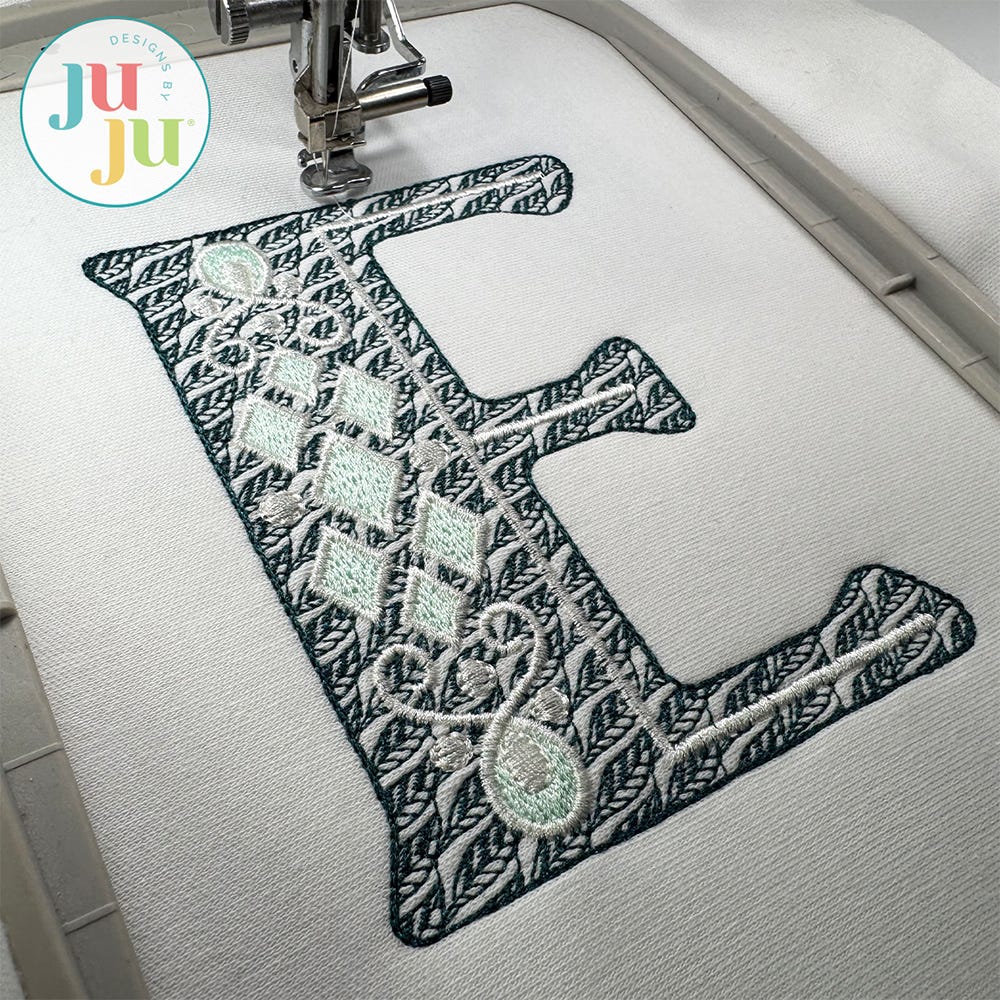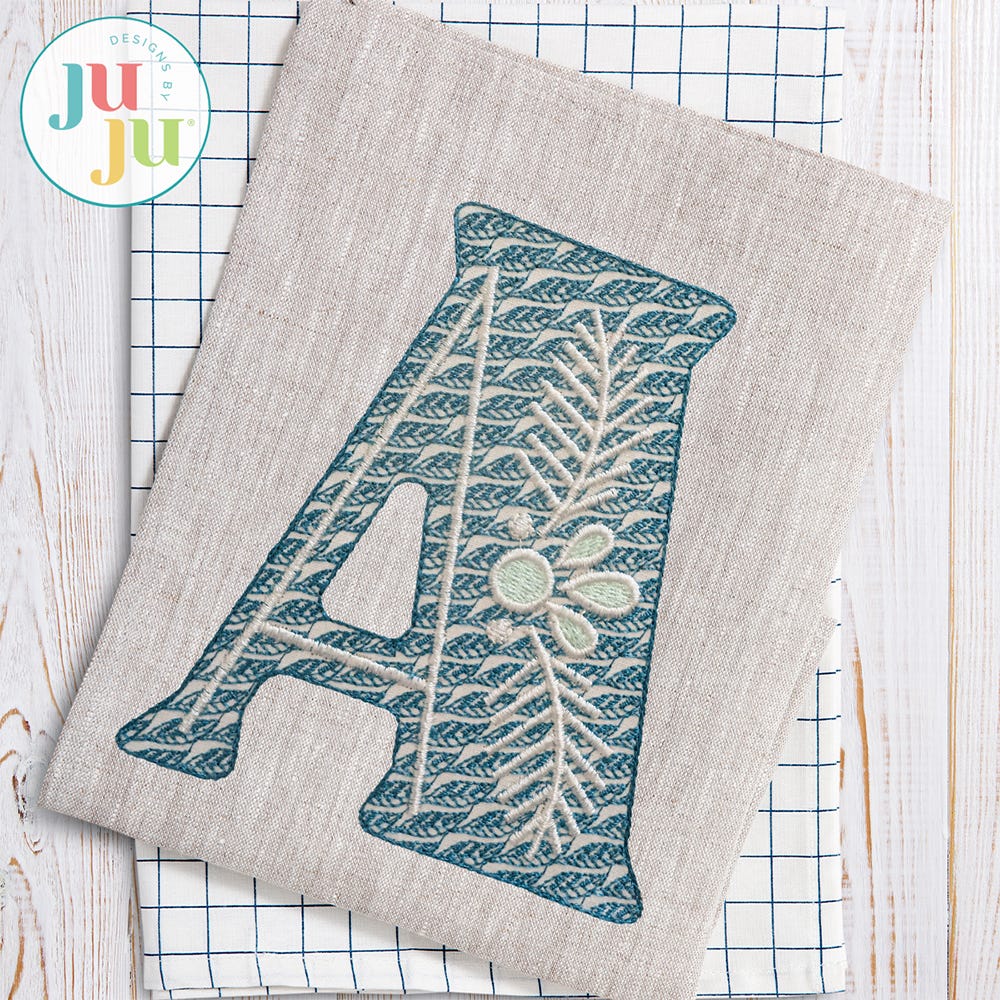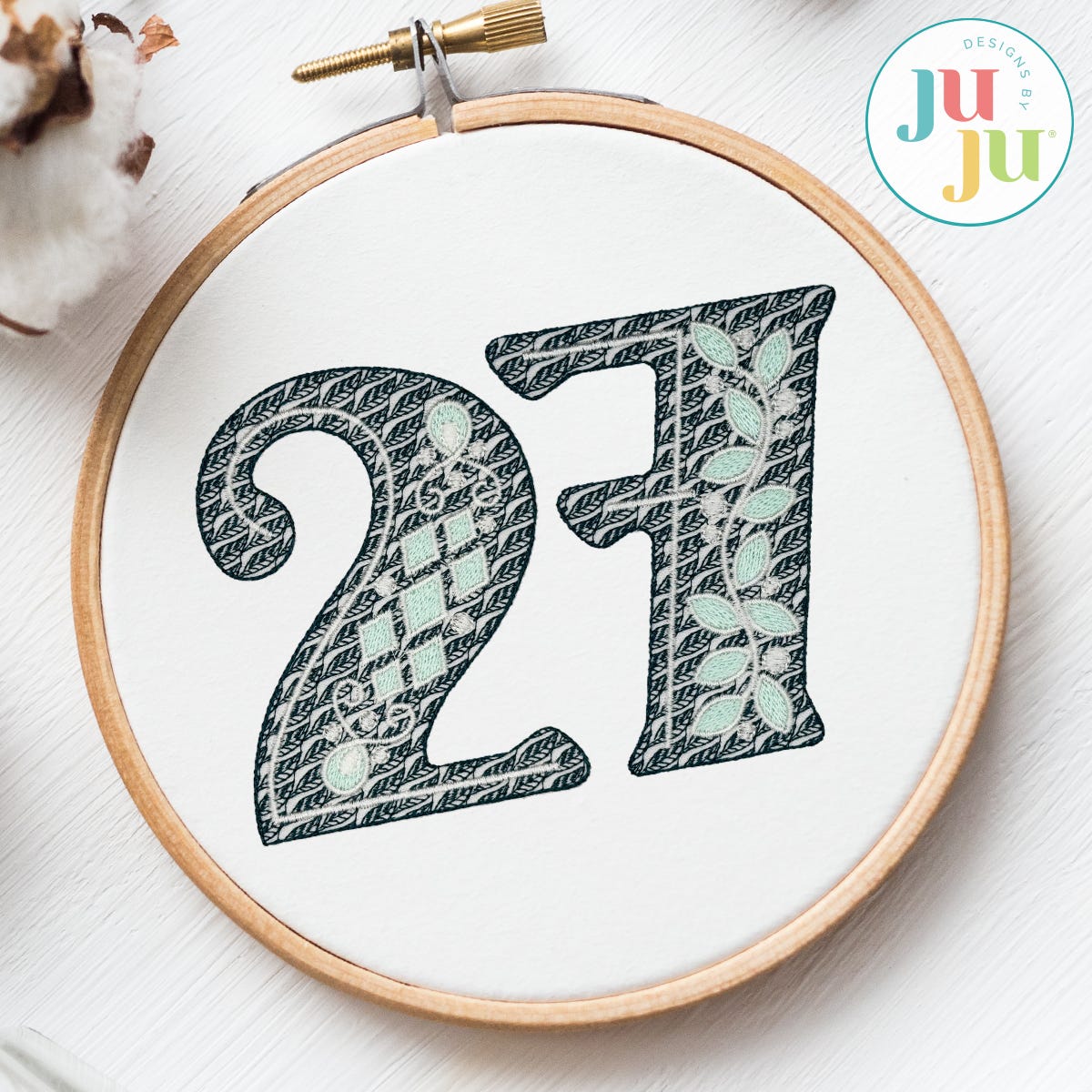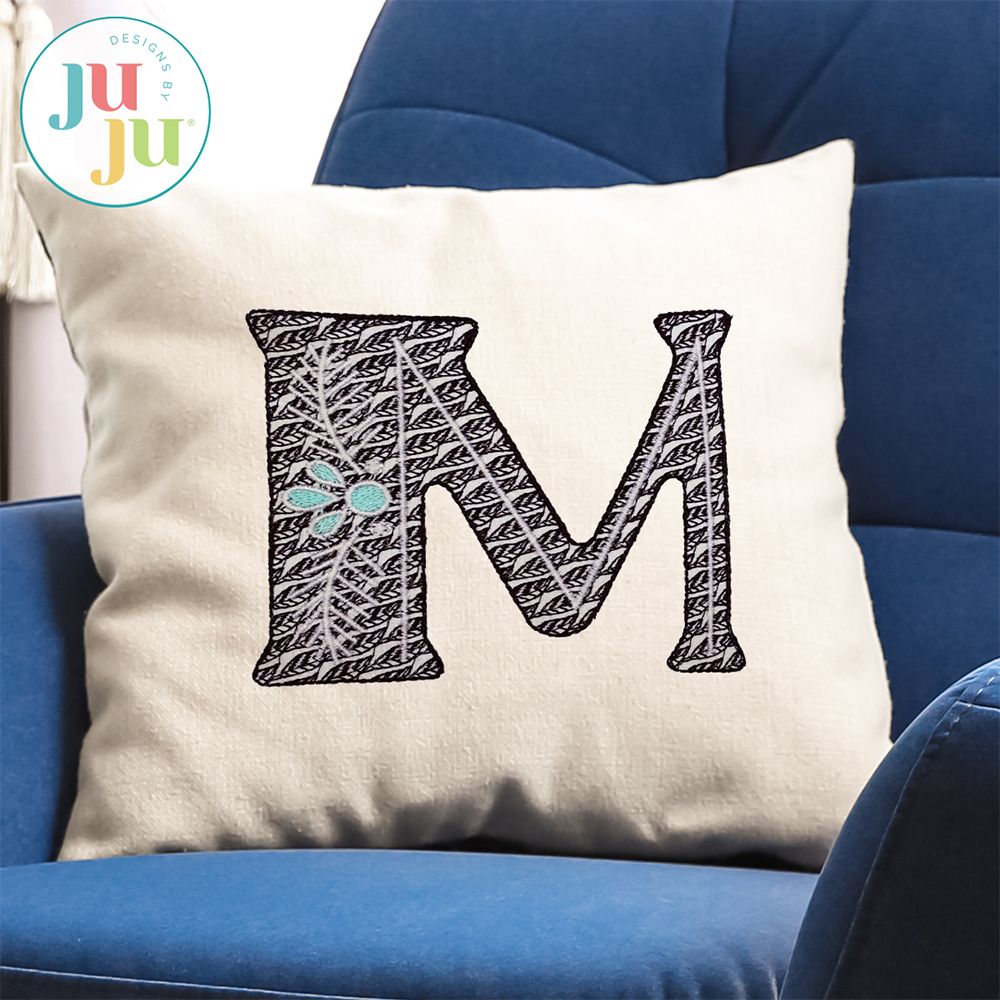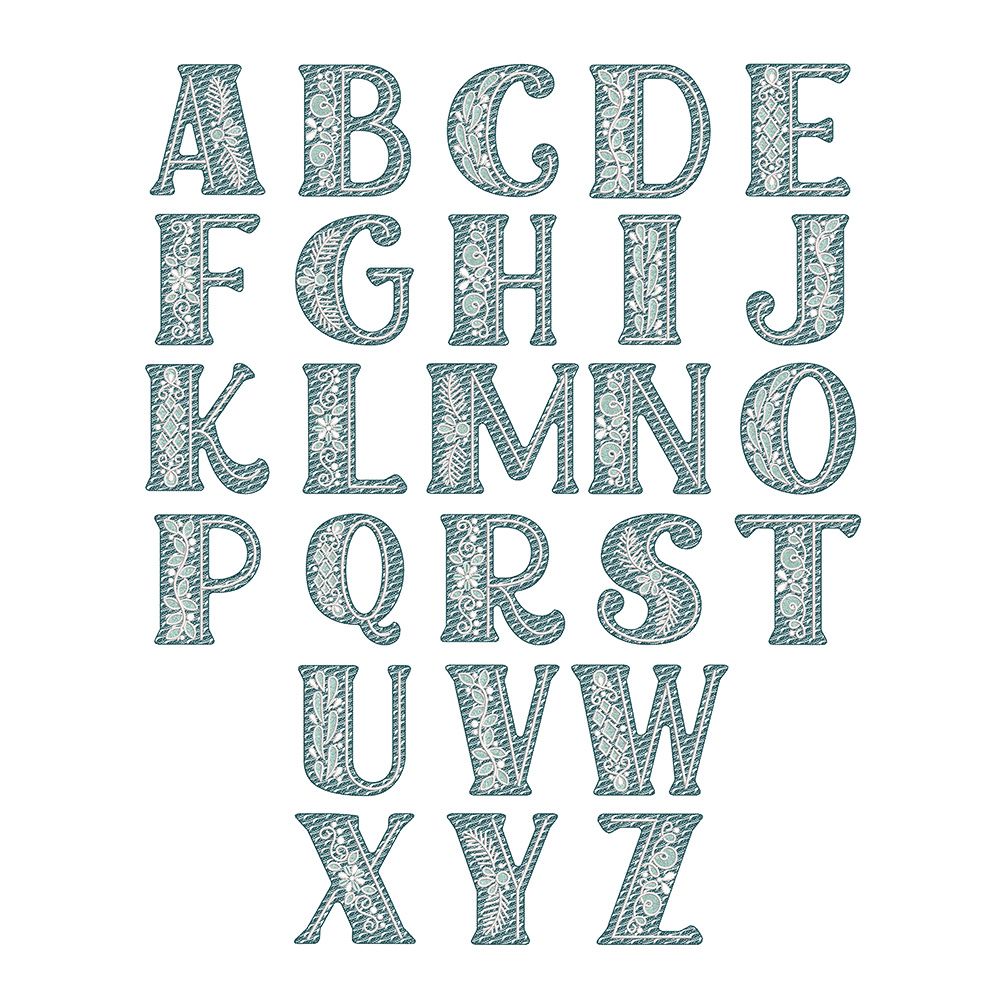
Flourish Bold Motif Filled Embroidery Font
Our embroidery-only Flourish Monogram is BOLD in both style and detail!  Each letter features a gorgeous leaf pattern motif fill stitching, topped with beautiful swirls, flourishes, and other decorative accents.
For best results, we recommend hooping your fabric with cutaway stabilizer. Since the fill has a lighter density, some fabrics may show through the sheer stitching. Light colored solid fabrics are recommended.